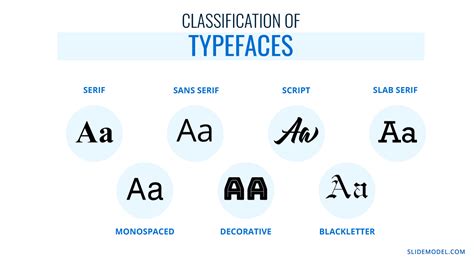
Good Presentation Fonts. This is one of the best fonts for presentations that features a tall and bold letter design that’s simply perfect for crafting titles for your slides. The most popular sans serif font used in presentations is arial, but other commonly employed.
Choose the Best Presentation Fonts
Web bookman century sans serif fonts differing from the serif font style, sans serif fonts do not have a tail. The most popular sans serif font used in presentations is arial, but other commonly employed. Web one of those decisions is choosing the best fonts for powerpoint presentations. This is one of the best fonts for presentations that features a tall and bold letter design that’s simply perfect for crafting titles for your slides. This list will help you find the best font for your next. Web best fonts to use for powerpoint. Typography sets the tone for your presentation and is instrumental in presenting your content.
Typography sets the tone for your presentation and is instrumental in presenting your content. Typography sets the tone for your presentation and is instrumental in presenting your content. This list will help you find the best font for your next. The most popular sans serif font used in presentations is arial, but other commonly employed. Web one of those decisions is choosing the best fonts for powerpoint presentations. Web bookman century sans serif fonts differing from the serif font style, sans serif fonts do not have a tail. Web best fonts to use for powerpoint. This is one of the best fonts for presentations that features a tall and bold letter design that’s simply perfect for crafting titles for your slides.